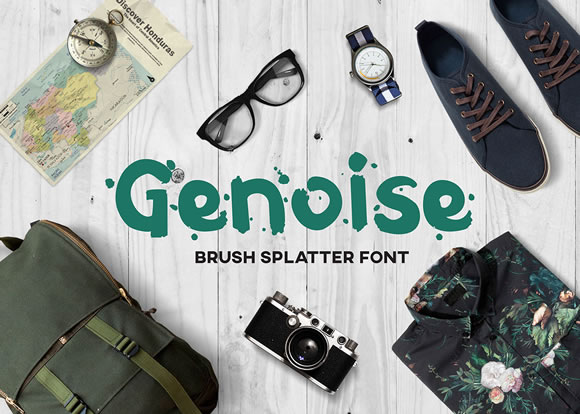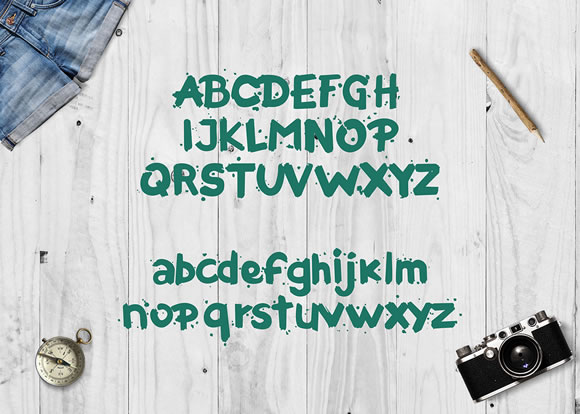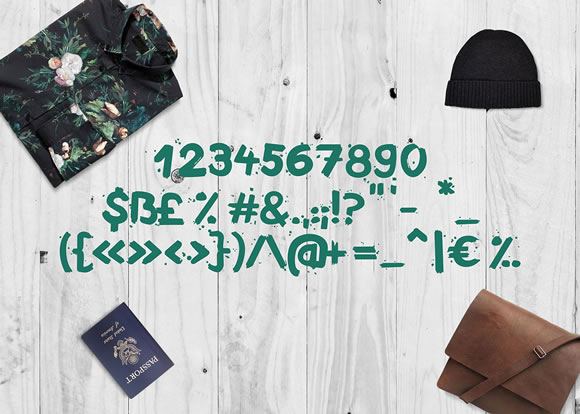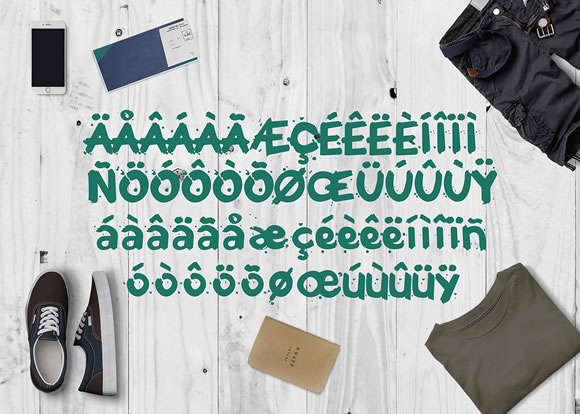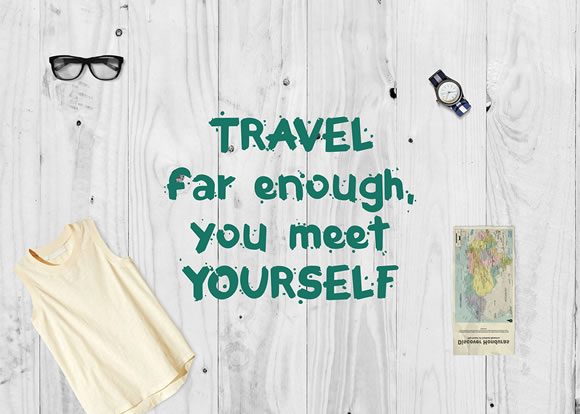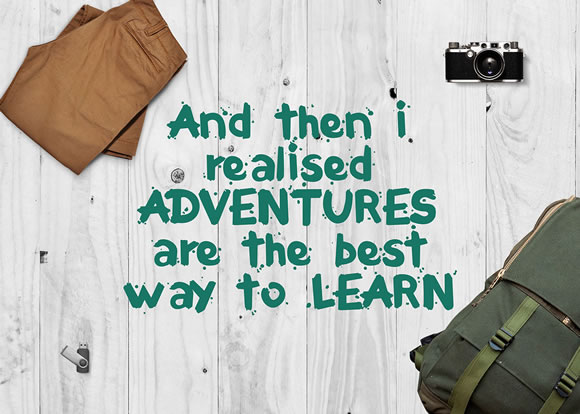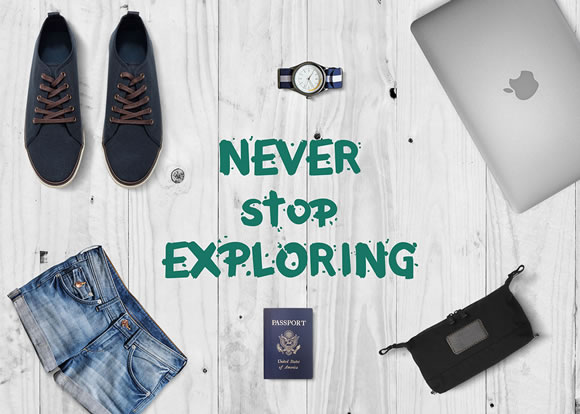
HomeScript FontsGenoise Font Script Fonts Genoise Font FacebookXPinterestWhatsApp Genoise Font Poster 2 Genoise Font Poster 3 Genoise Font Poster 4 Genoise Font Poster 5 Genoise Font Poster 6 Genoise Font Poster 7 About Genoise Font Genoise is a handmade brush font covered with splatter, created by Milena Gajovic DOWNLOAD ON CREATIVE FABRICAThis font is sold and delivered by Creative Fabrica. Font Canyon may earn a commission if you buy through this link. People also explored Asgardhian Font Mustika Font Sweet Jasmine Font Samarasa Font Prester John Font Matcha Latte Font Adventure Font Full Rear WIndshield Mockup Breattogis Font 296 0 TagsGenoise Font Previous articleMareke FontNext articleMagenta Font LEAVE A REPLY Cancel reply Comment: Please enter your comment! Name:* Please enter your name here Email:* You have entered an incorrect email address! Please enter your email address here Website: Save my name, email, and website in this browser for the next time I comment. Personal Use Free BD Beans Personal Use Free Read more about this font Calling Personal Use Free Read more about this font Panaroe Personal Use Free Read more about this font Rafika Personal Use Free Read more about this font BLOG Transform Your Website: Elevate Your Typography with 7 Best Web Font Generators Are you ready to transform your website's typography from ordinary to extraordinary? Great! Today, we're diving into the world of web font generators, which... Fonts That Capture the Spirit of New York City How to Cut Any Font on Cricut: Convert a Font to SVG (Free) Free vs Paid Fonts: Why Investing in Premium Fonts Is Worth It